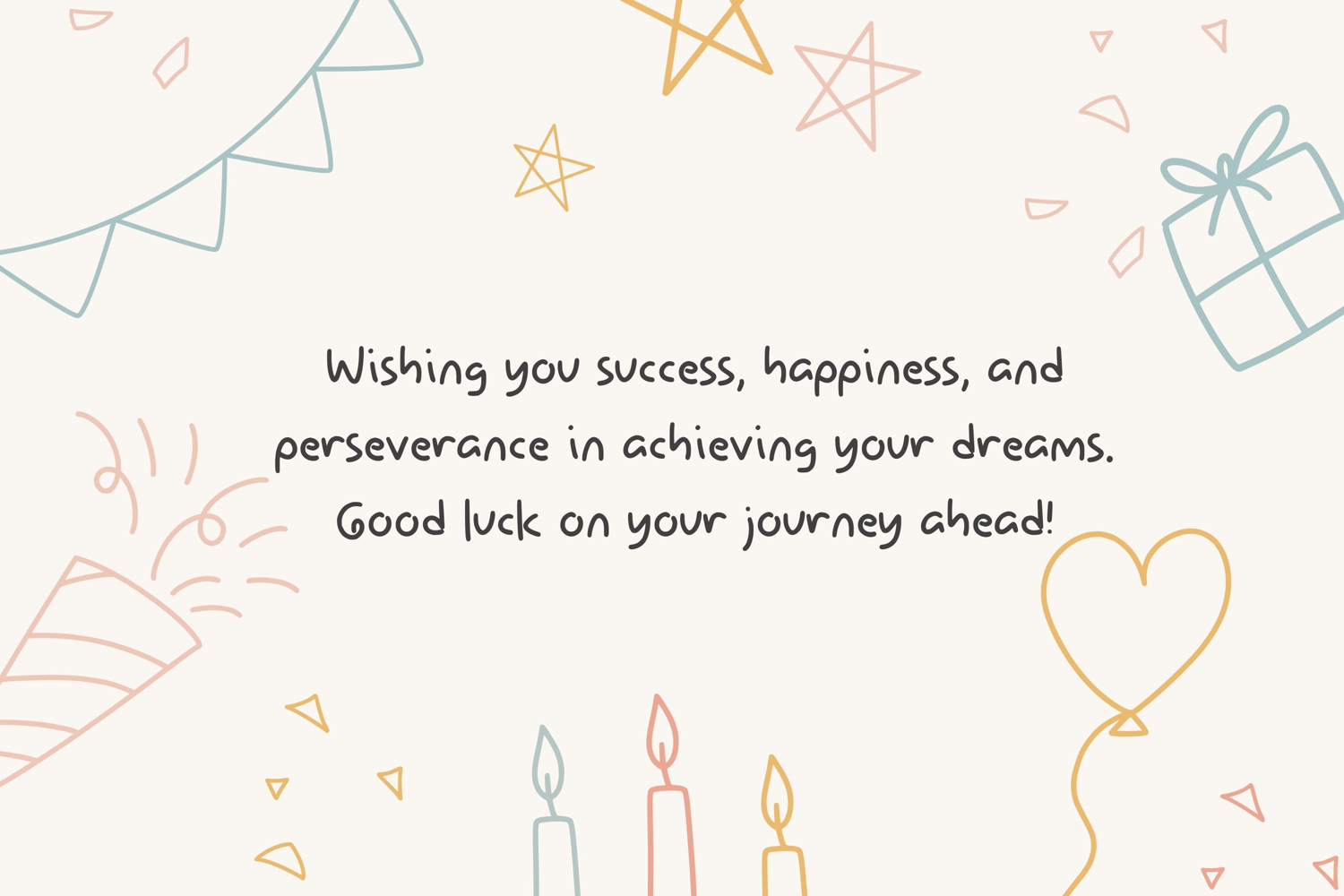
Kamilah Font
Introducing a delightful font for all your crafting and design needs: our Cute Handwriting. This font effortlessly merges the charm of handwritten letters with a professional edge, perfect for bringing a special touch to graphic design businesses and creative projects. Imbued with an organic feel, Cute Handwriting elevates your artistic vision, turning simple projects into authentic masterpieces. Harness the power of penmanship for impactful branding, inviting invitations, and captivating artwork. Unleash your creativity with Cute Handwriting font.